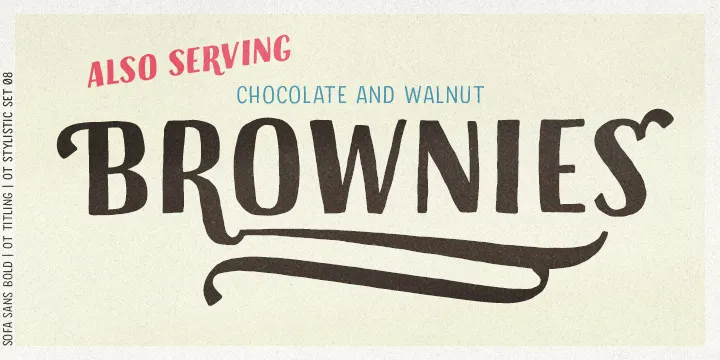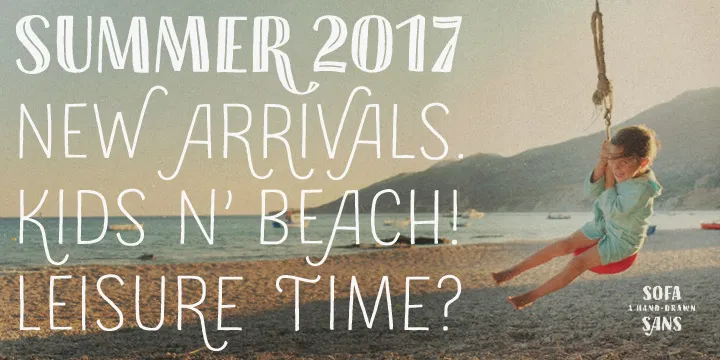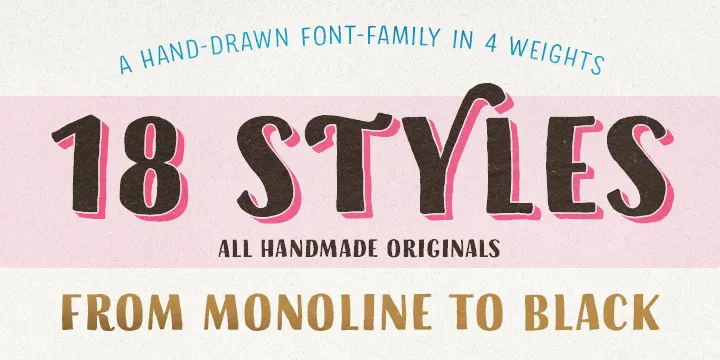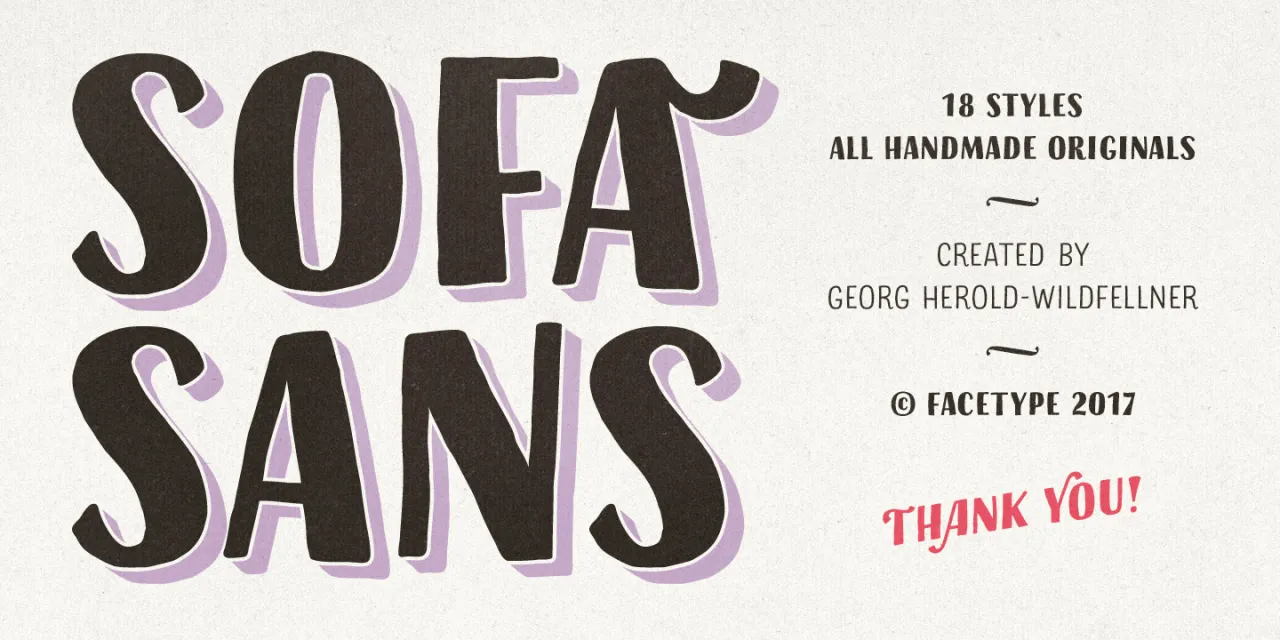
Friendly and flexible: New handmade font Sofa Sans
Created by Austrian type designer Georg Herold-Wildfellner, Sofa Sans is a new hand-drawn, all-caps, display-family font. With a friendly and eye-catching character, it could serve as a good choice for creating customised headings in editorial and cover designs.
Interestingly, Herold-Wildfellner has created eight different Rs for each style. These include a standard R, a contextual alternates R, an OT-Swashes R, and five OT-Titling "super-swashy" Rs, which are designed to automatically adjust themselves to available white space.
Sofa Sans comes in four weights, from a monolinear Thin to Black and 18 styles, including shadow-, 3D-, inline- and hatched-styles as well as five layer fonts. There are two optical sizes (Standard and Display), several OpenType features, including Swashes- and Titling-Alternates, and an extensive character set. It's currently available with an 80 per cent discount at MyFonts (ends April 14).